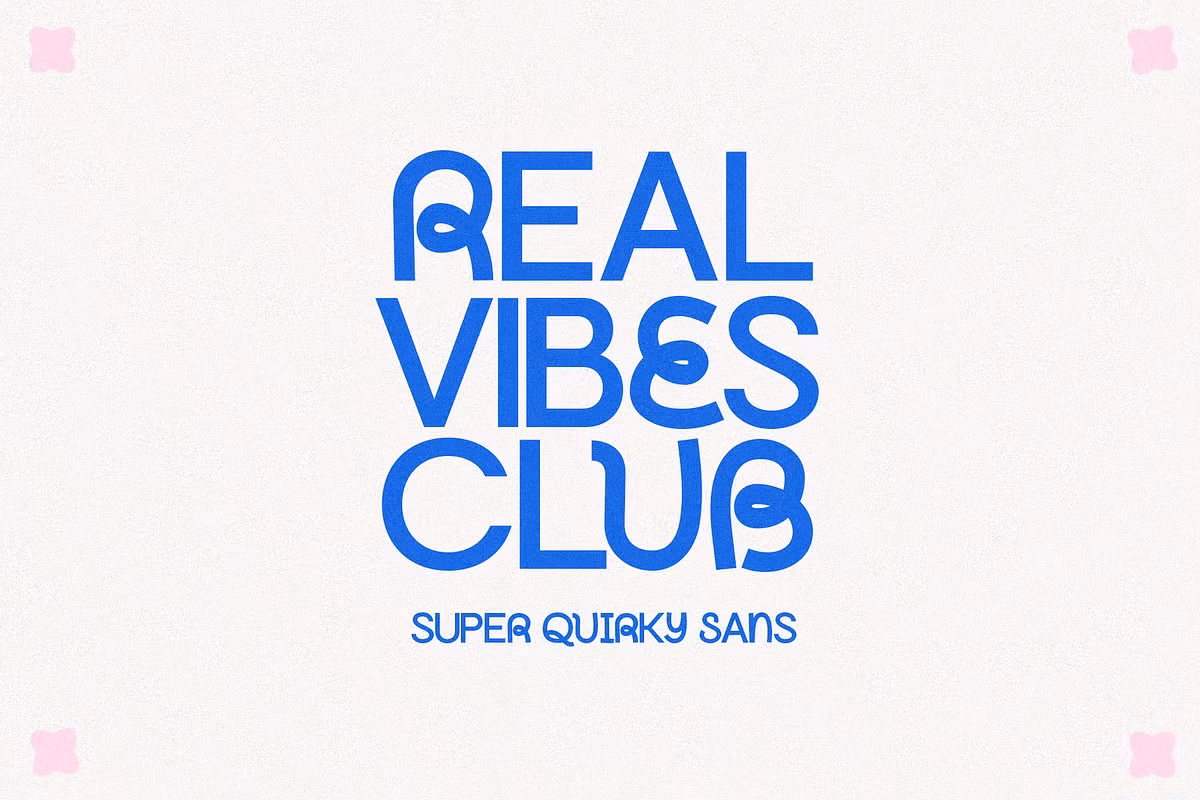
Real Vibes Club | Quirky Sans Font Free Download
Real Vibes Club | Quirky Sans Font Free Download is a fun and energetic sans serif typeface with unique letterforms that add personality to any project. Ideal for bold branding, creative posters, social media content, and lifestyle design, this font brings a youthful, modern edge to your work. Please note that you must purchase this font for commercial use, but it is available as a free download for testing purposes. Express your creativity with confidence using Real Vibes Club | Quirky Sans Font Free Download, and give your designs a fresh, standout look.